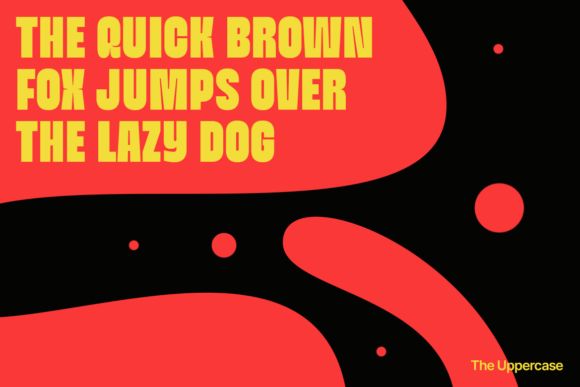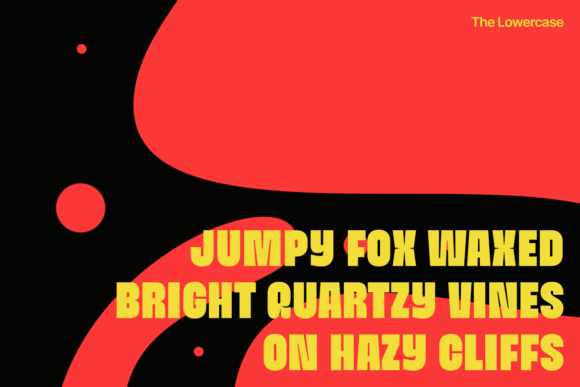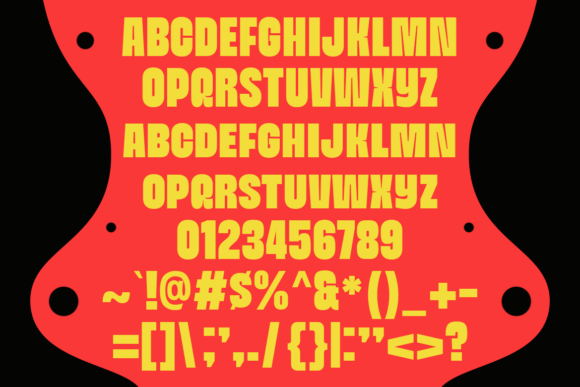
Unleashing the Unapologetic Voice of the Future
Remember that moment when you finally nailed the perfect visual concept for your latest design project? The one that made everyone take notice? That rush of creative energy is what Enquix Font is all about – amplifying your message to the point where it can’t be ignored.
Born from the raw DNA of brutalist poster design, Enquix Font is an experimental, futuristic typeface that refuses to blend in. It’s for those who dare to be loud, unapologetically bold, and unapologetically square. This is not a font for the background – it’s for the headlines, the rebels, and the brands that refuse to be silenced. With Enquix Font, designers can deliver the visual voltage their work demands.
Whether you’re designing for the future or dragging it into the now, Enquix Font is the perfect tool to help you make a lasting impact.
Enquix Font Key Features
- Unique Characteristics: Enquix Font features a unique blend of modern and classic design elements, with a distinctive x-height and a wide range of ligatures and swashes.
- Font Weight: Enquix Font comes in 7 different font weights, including light, regular, medium, bold, heavy, black, and outline, allowing designers to create a range of visual effects.
Enquix Font Review
As a designer, I’ve had the chance to work with the Enquix font, and I must say it’s a mixed bag. Let’s dive into the good, the bad, and the overall impression.
- Unique aesthetic: Enquix has a distinctive, hand-drawn feel that sets it apart from more common fonts.
- High legibility: The font is surprisingly easy to read, even at smaller sizes.
- Customization options: The font comes with a range of weights and styles, making it easy to adapt to different design needs.
- Limited font sizes: While the font is legible, it can look a bit awkward at very large or very small sizes.
- Not ideal for body text: Enquix is best suited for headlines and titles, as its unique aesthetic can be distracting in large blocks of text.
- No OpenType features: The font doesn’t support advanced features like ligatures or contextual alternates.
Overall, Enquix is a solid choice for designers looking for a distinctive, high-contrast font. While it may not be ideal for every project, its unique aesthetic and high legibility make it a great option for headings and titles. With some careful planning and selection, Enquix can add a touch of personality to your designs.
Enquix Font is commonly used for headings, titles, and paragraphs in a variety of design contexts, including business cards, brochures, and websites. It is also used for creating a consistent brand identity and style throughout a design project.
Alternatives to Enquix Font
Montserrat is a modern sans-serif font that is perfect for digital designs. It is highly legible and works well in a variety of contexts, from headlines to body text. Montserrat is a great alternative to Enquix Font for designers who want a clean and minimalist look.
Comparison: Montserrat is more geometric and modern than Enquix Font, with a more open and airy feel. While Enquix Font has a more subtle, elegant feel, Montserrat is bolder and more attention-grabbing.